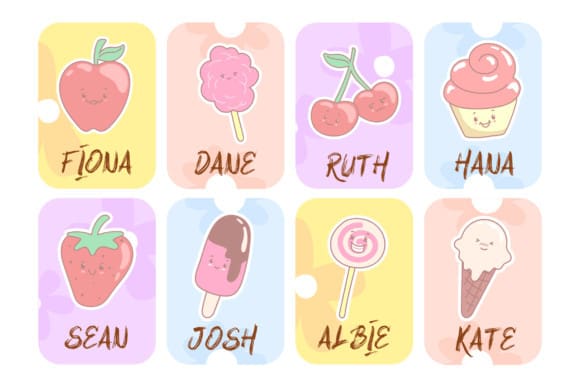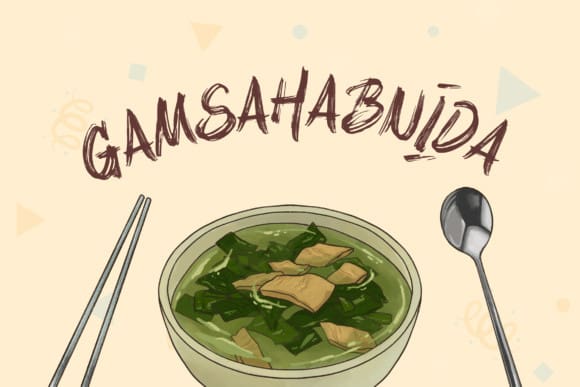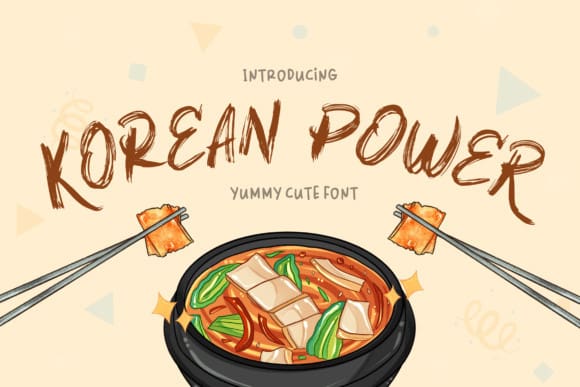
Korean Power Font
Korean Power Font is a natural brush handwriting font suitable for any kind of crafting. It will boost your design and make it more catchy. It is also nice for t-shirt printing.